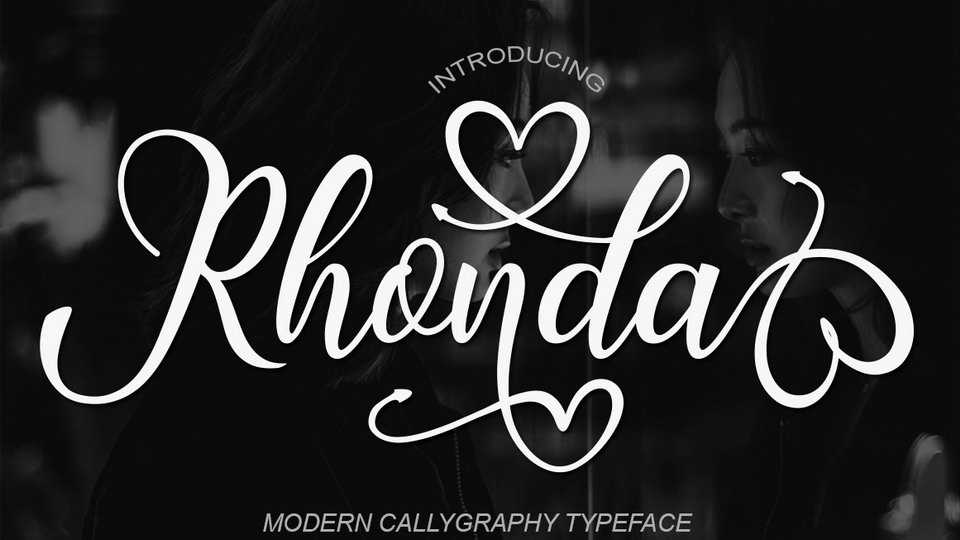
Download Rhonda Script, a charming modern calligraphy font with lovely decorative characters and dancing lineage. Ronda Script looks wonderful for invitations, greeting cards, Valentine’s and wedding designs, quotes, social media and more.
Designer: Bba Key